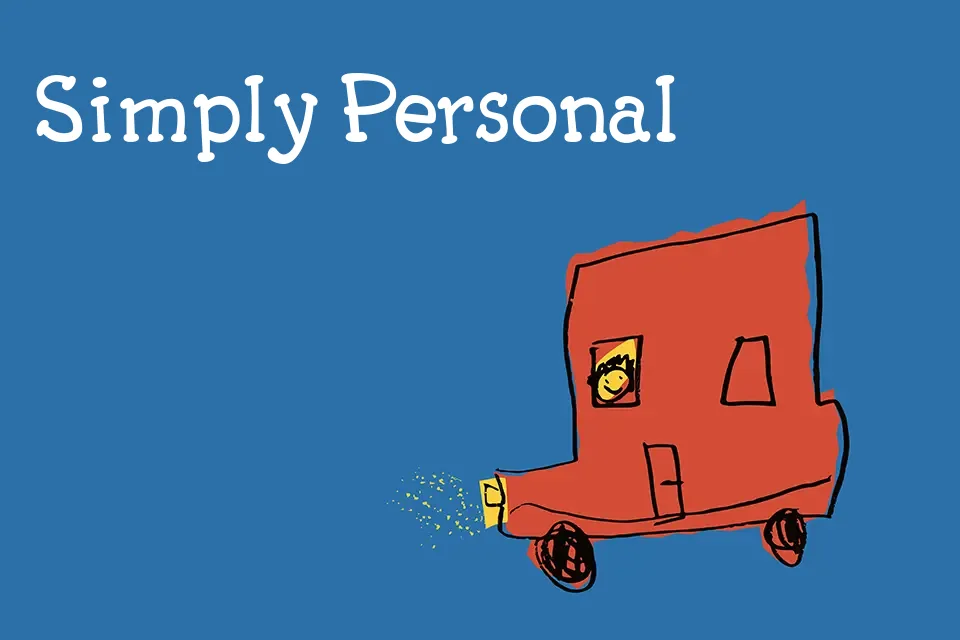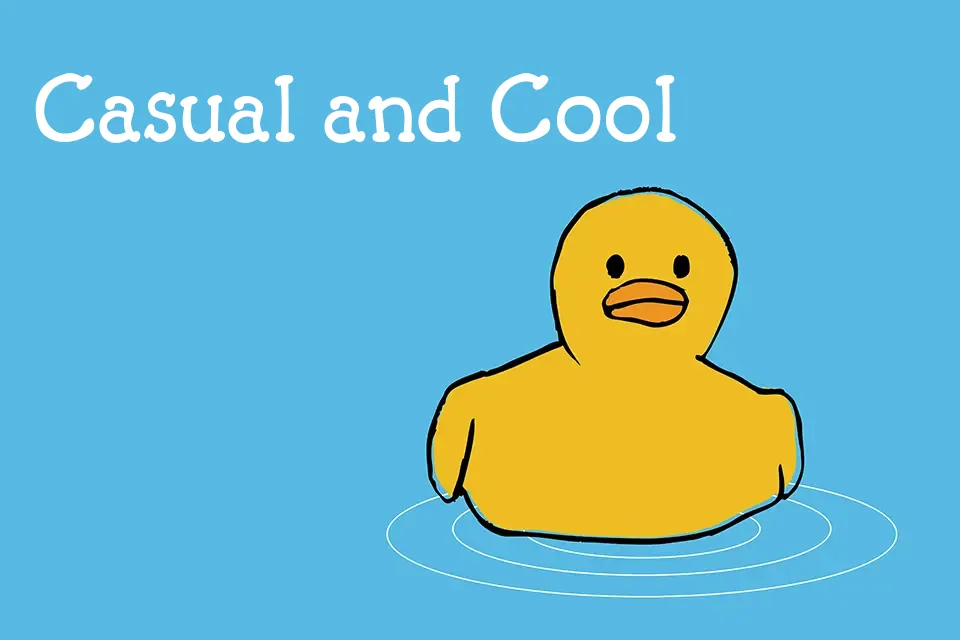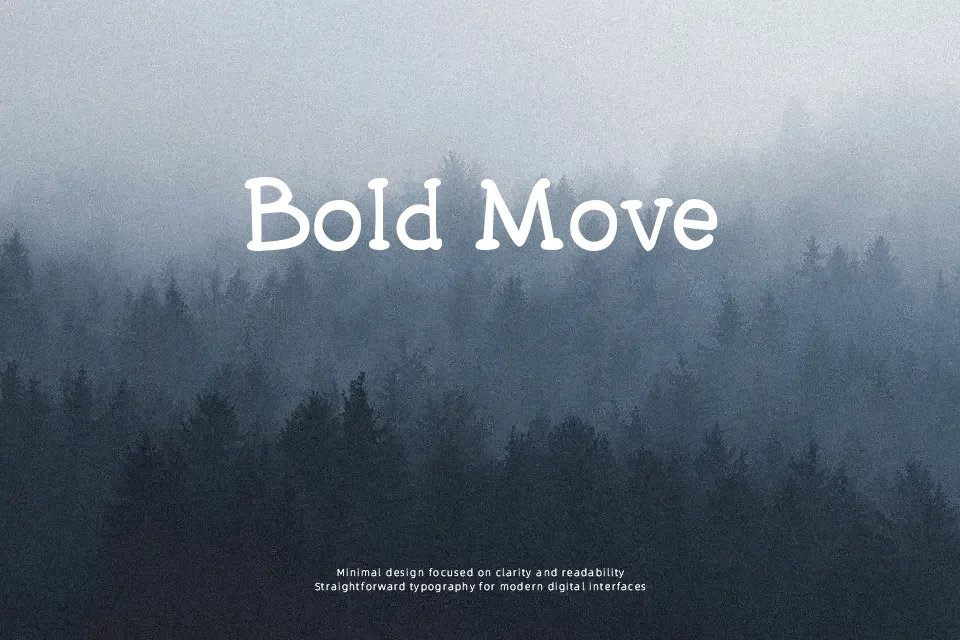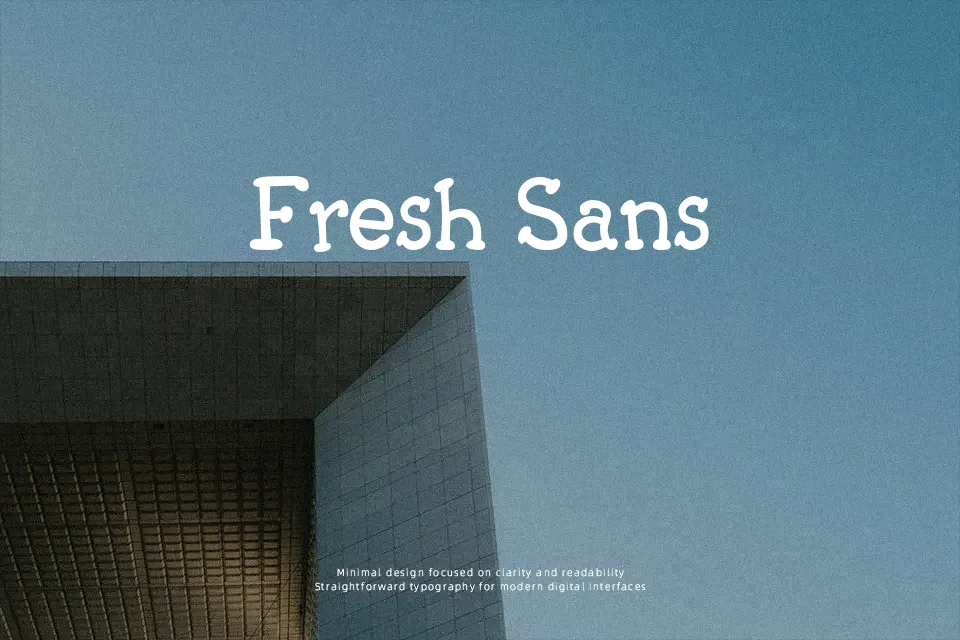
Carogna Font
Carogna Font introduces an energetic comic display aesthetic defined by thick, hand-rendered strokes, rounded terminals, and relaxed structural proportions. The letterforms feature subtle weight variations and organic outlines that provide a tactile, hand-lettered appearance. Generous internal counters and balanced spacing maintain immediate legibility across short phrases and prominent headline sizes. However, the irregular contours and heavy stroke weight cause dense textures that make the typeface less suitable for small body paragraphs or complex data tables. For illustrated book covers, playful product packaging, and editorial banners, the design provides an expressive and engaging visual presence that immediately captures audience attention.
Best For: comic book titles, illustrated poster headlines, cartoon merchandise packaging, video game title cards
Not Ideal For: continuous body text, corporate annual reports, mobile app interface labels, dense legal documents
Perfect for advertising, headline, and kids, with a bold and comic style.